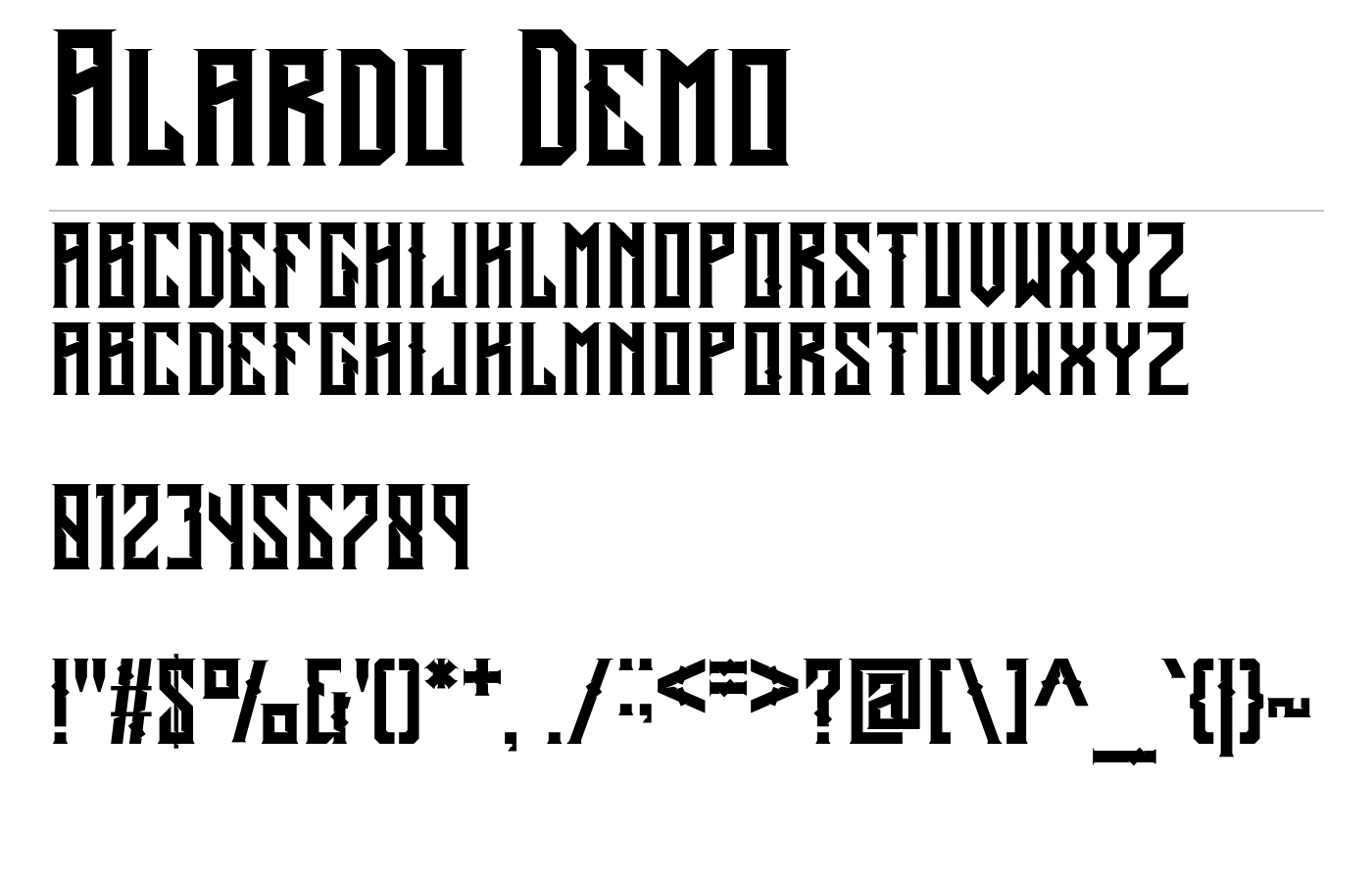
Alardo Demo is a bold, condensed blackletter-inspired display font with sharp, angular strokes and strong vertical emphasis. Its tall, narrow letterforms and high contrast between thick and thin lines create a dramatic, gothic feel perfect for headlines, posters, and branding that aims to convey a powerful, historic, or edgy personality. This distinctive, all-uppercase design works best where a striking and memorable impact is needed.
Alardo Demo Font
About Alardo Demo Font
| Font family | Alardo Demo Font |
| Designer | Candi Erwanto |